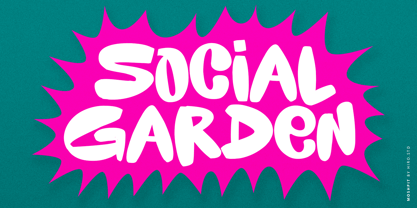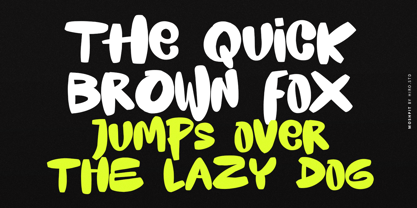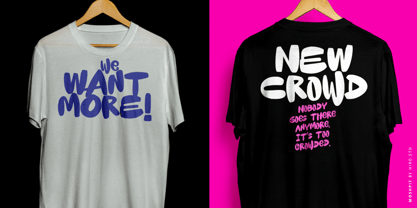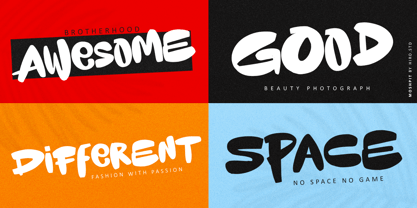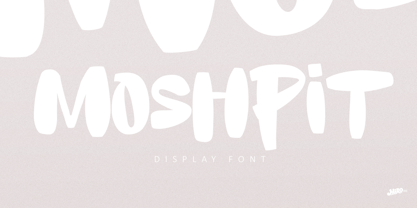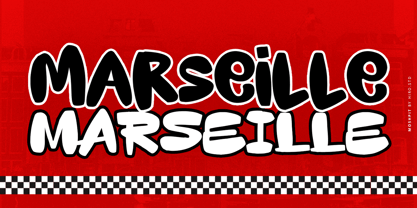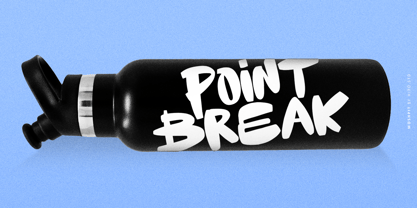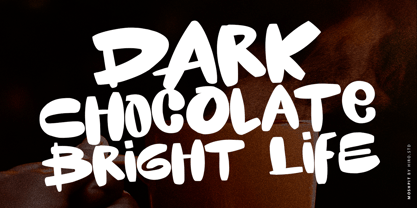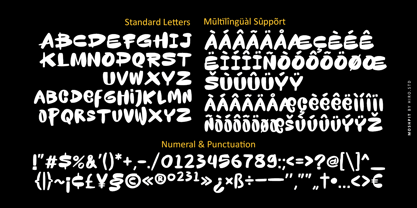
Moshpit
by HIRO.std
The Moshpit Font Family was designed by Chairul Ashar and published by HIRO.std. Moshpit contains 1 styles.
Moshpit is Display Font   This font describes about bold, simple, freedom, rebel, and flexible.   FEATURES - Uppercase and lowercase letters - Numbering and Punctuations - PUA Encoded Characters - Multilingual Support - Works on PC or Mac   USE Moshpit works great in movie title, game title, headline, logotype, labels, magazine, packaging, apparel, and any projects that need freedom taste.   Enjoy using! Thanks.   HIROstd